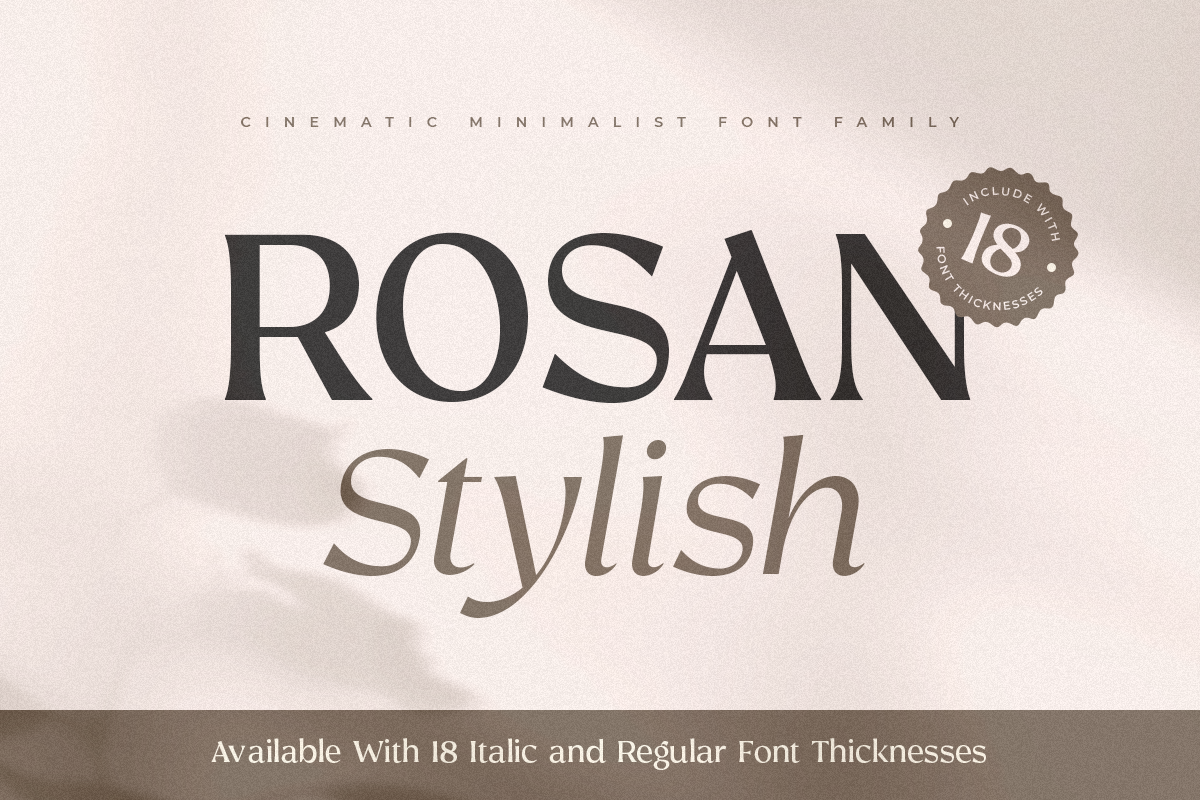
Rosan Stylish - Minimalist Font
Elevate your high-end projects with Rosan Stylish, a cinematic minimalist font that exudes elegance and sophistication. Drawing inspiration from the timeless allure of classic cinema, this typeface seamlessly blends contemporary aesthetics with vintage glamour. Rosan Stylish is the perfect choice for designers seeking to create impactful logos and refined branding materials that make a bold statement. What's Included: 18 comprehensive font styles 4 format file types for each style (OTF/TTF/WOFF/...